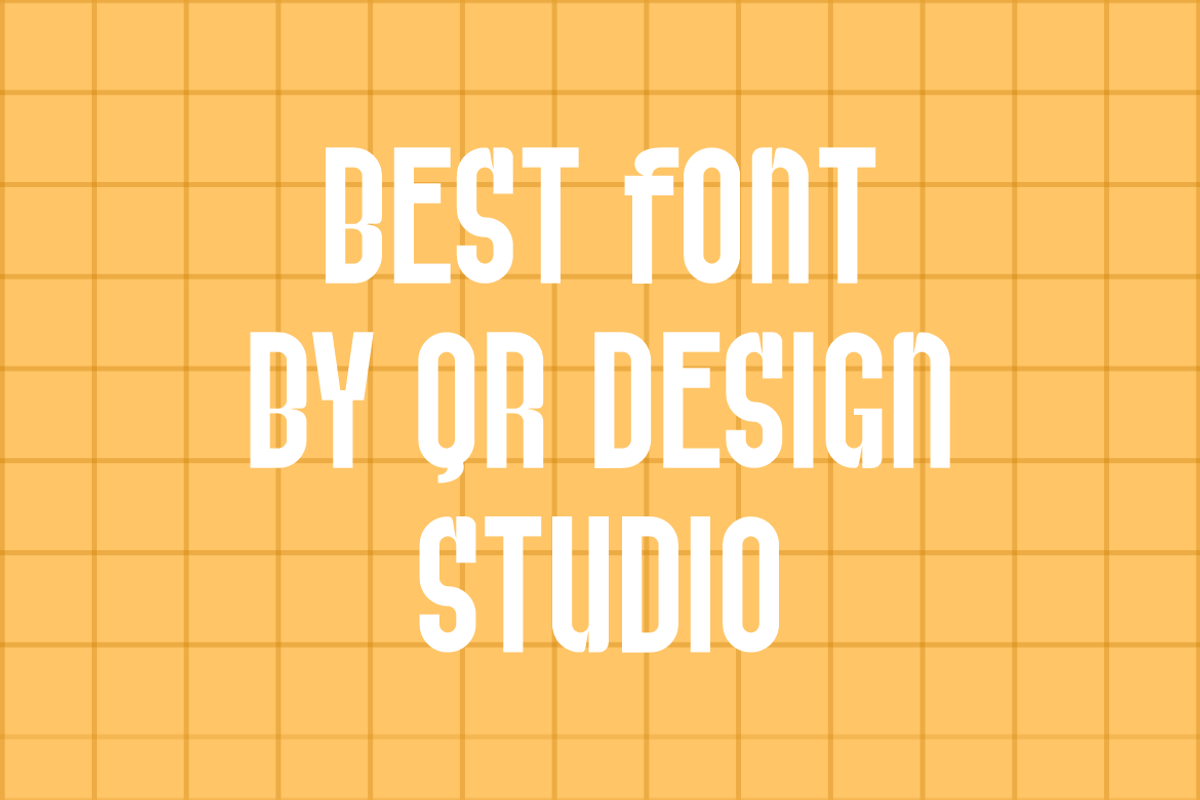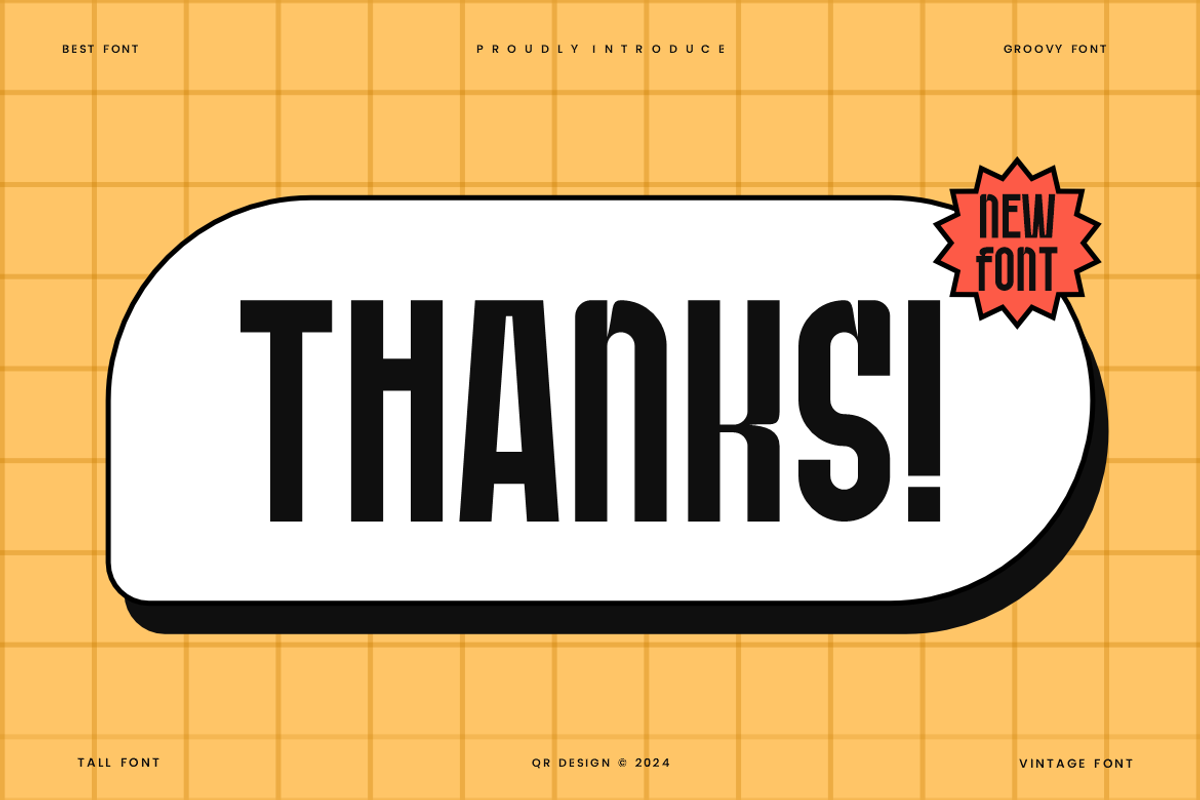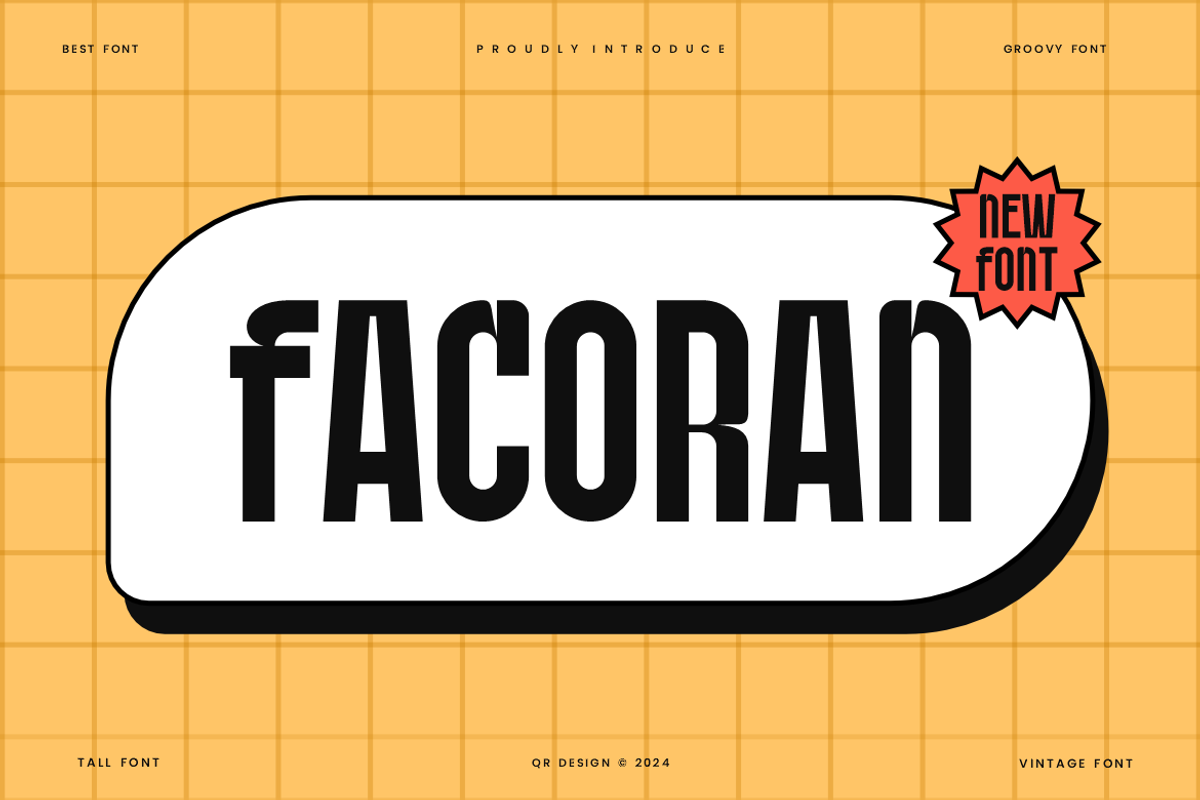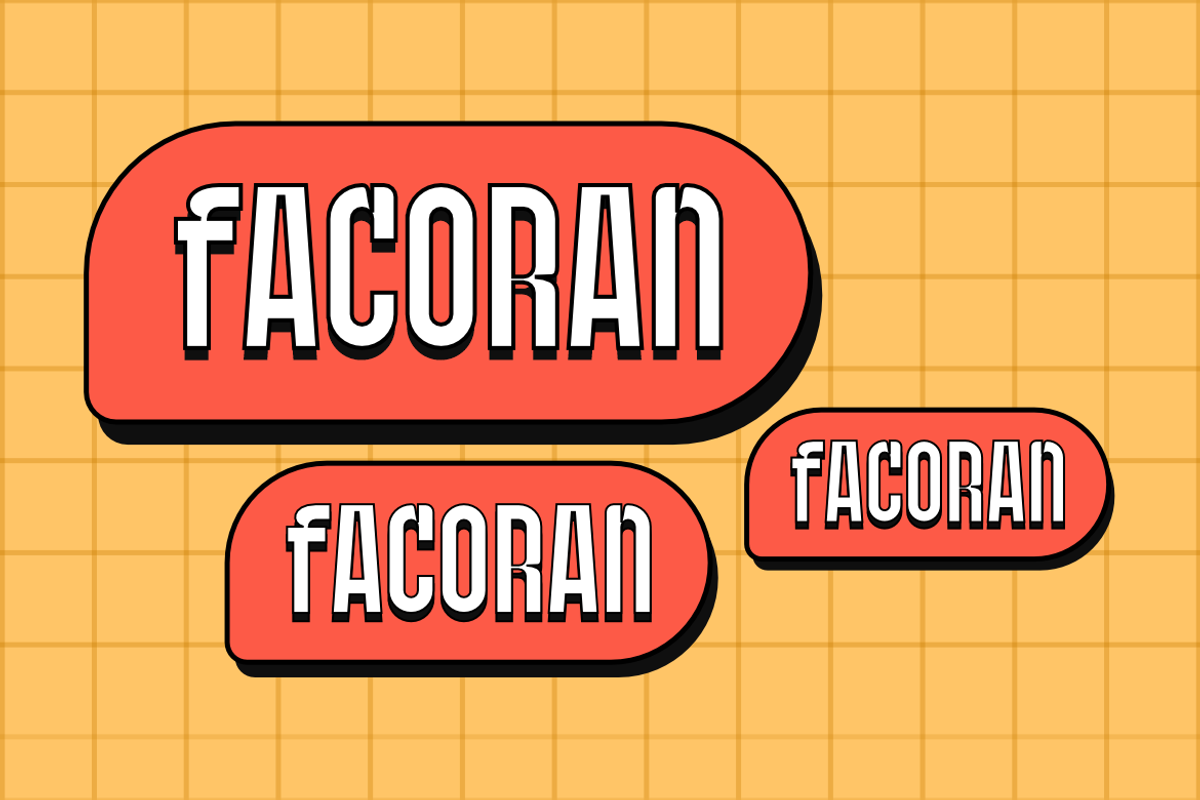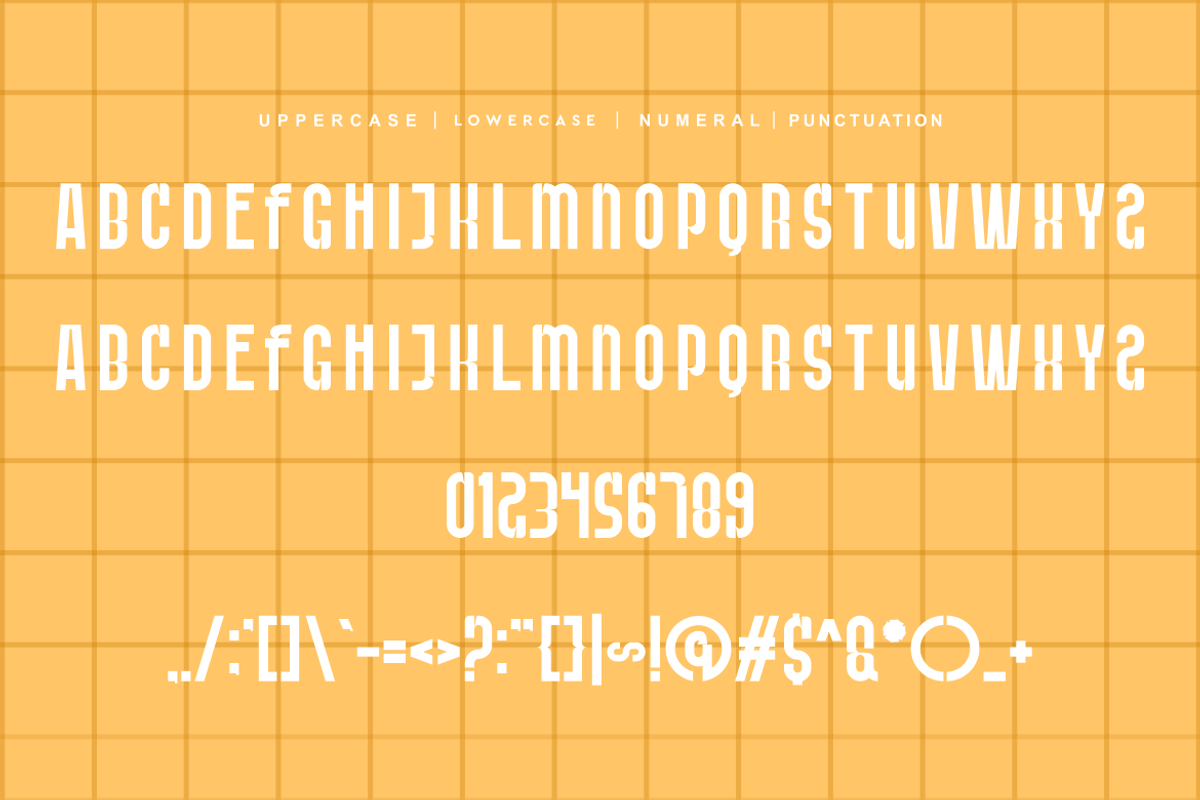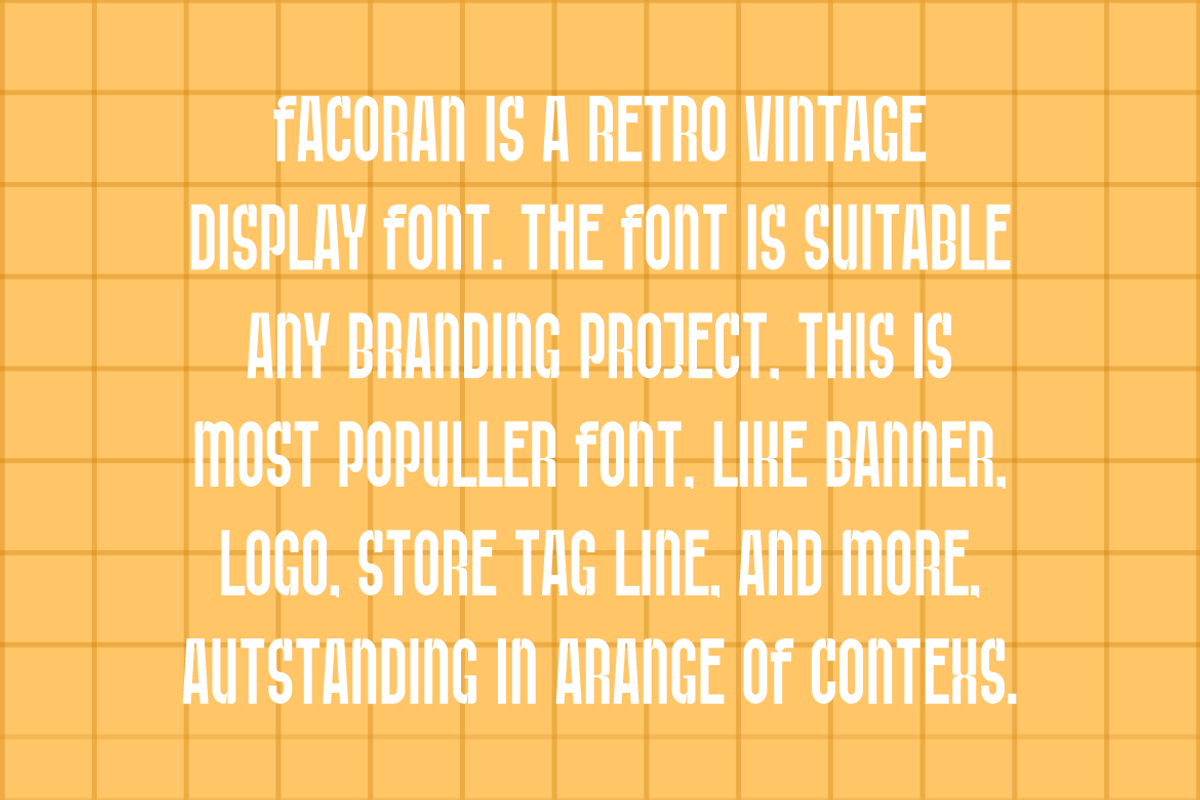
Facoran - Funky & Vintage Lebel Font
Facoran - Funky & Vintage Lebel Font is a bold and authentic display font. The font is suitable for any branding project like poster, logo, sport, and many more. Outstanding in a wide range of contexts.